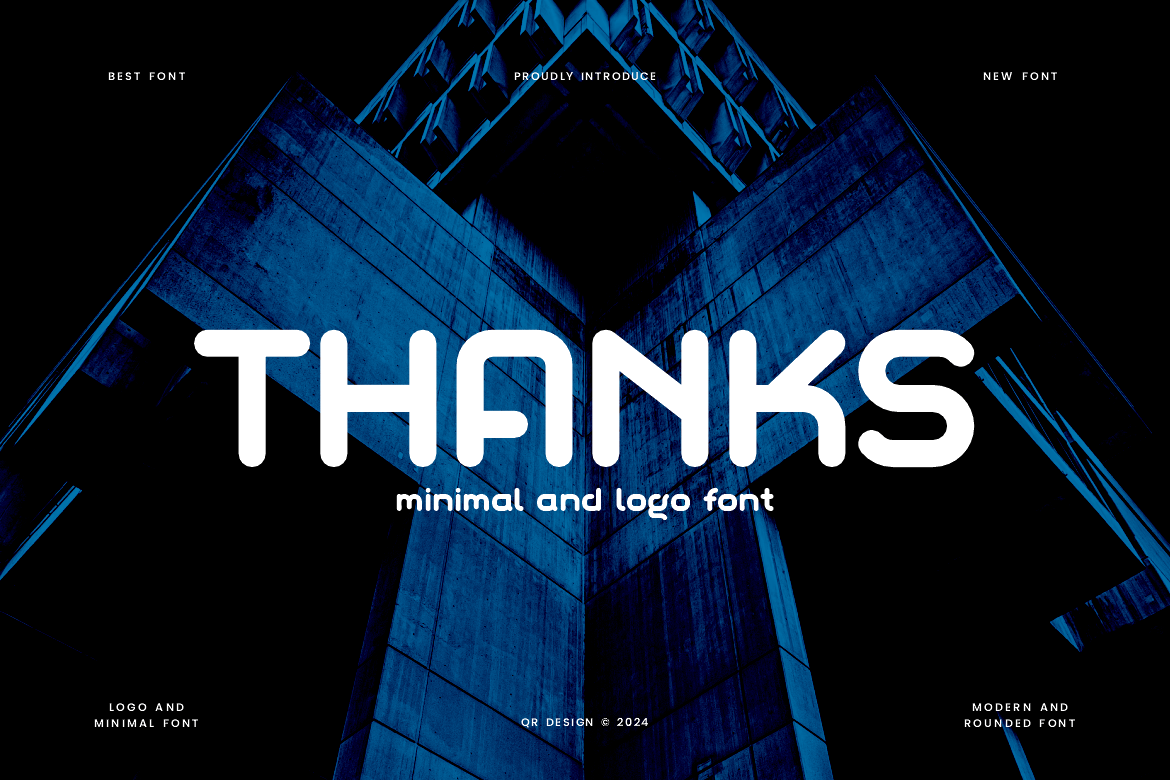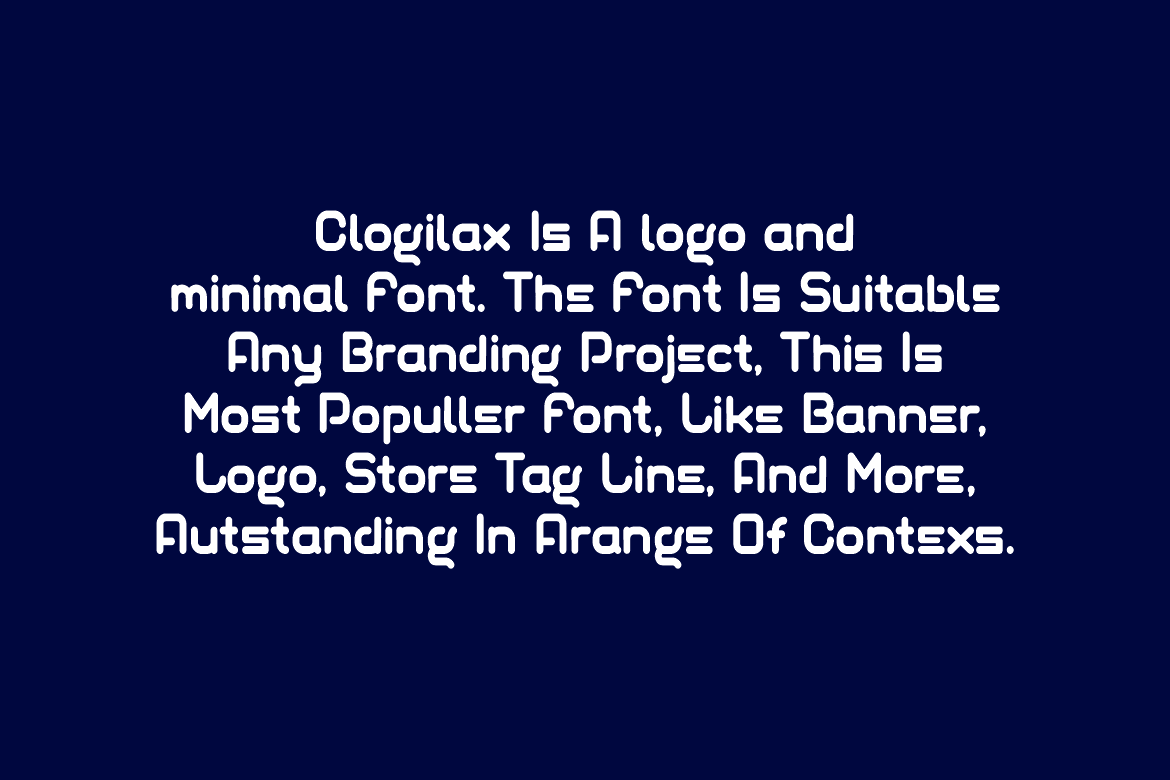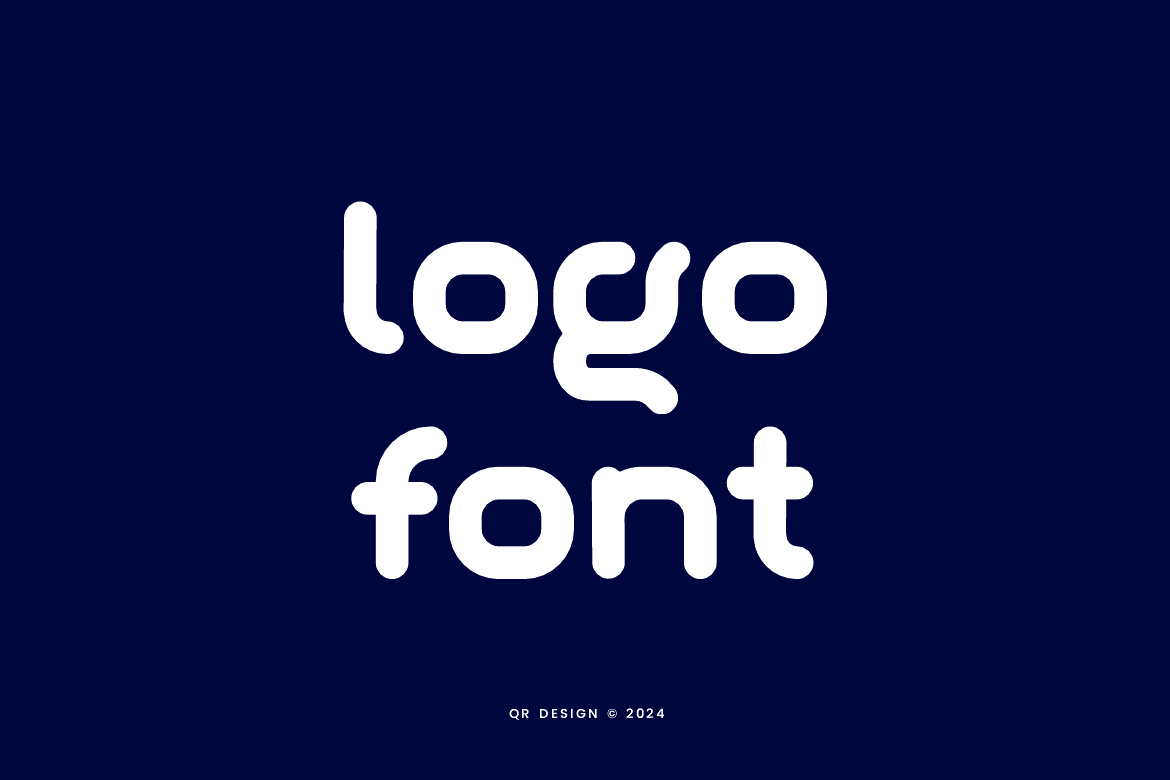
Clogilax – Minimal & Logo Font
Clogilax Font is a bold and authentic display font. The font is suitable for any branding project like poster, logo, sport, and many more. Outstanding in a wide range of contexts.